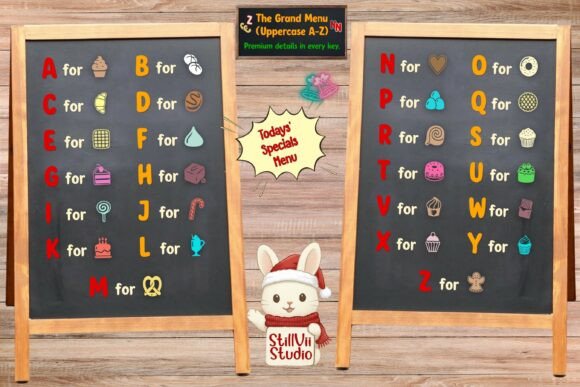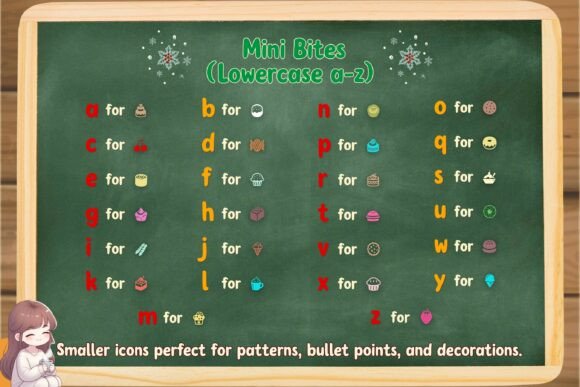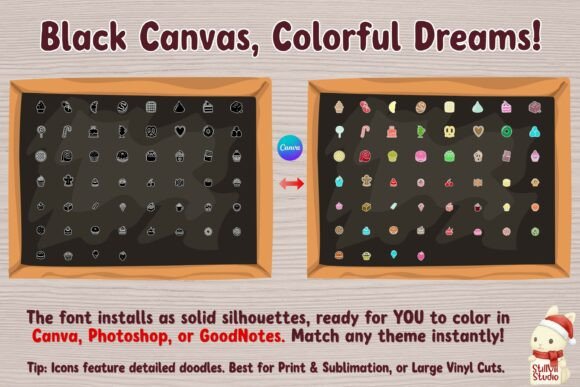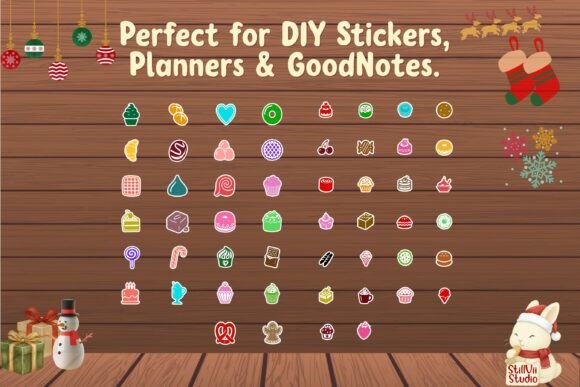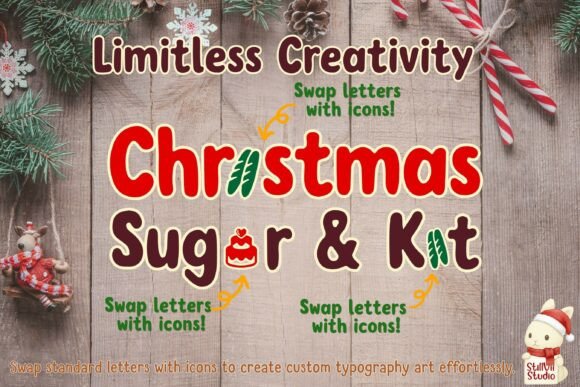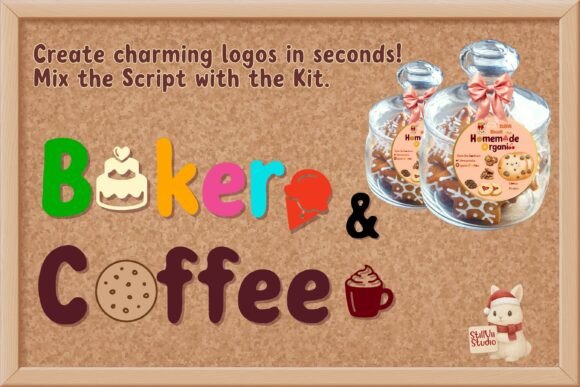
Welcome to the Sweetest Christmas Bakery! 🎄
Are you ready to serve up delicious designs this holiday season? Look no further than the “Christmas Cream & Kit” font duo! Imagine the smell of fresh cookies and warm cocoa—that’s the vibe of this fantastic font combination. In this article, we’ll dive into the details of Christmas Cream and Kit Font, and explore how you can use them to create stunning holiday designs.
Introducing Christmas Cream: A Bold, Retro Monoline Script
Christmas Cream is a bold, retro monoline script font that’s perfect for creating “yummy” headers. Its solid style and rounded letterforms evoke the warmth and friendliness of the holiday season. With Christmas Cream, you can add a touch of nostalgia and sophistication to your designs. Whether you’re creating a holiday marketing campaign or a festive social media post, this font is sure to impress.
Meet Christmas Cream Kit: A Font Packed with Hand-Drawn Icons
But that’s not all! Christmas Cream Kit is a font packed with 52+ hand-drawn bakery and holiday icons, mapped to A-Z and a-z. This means you can mix and match these adorable icons to create instant logos, cute gift tags, and festive planner layouts. The icons feature a range of holiday treats, including trees, treats, and stars, allowing you to build cohesive holiday scenes instantly.
Celebrate the Season with Christmas Cream & Kit
The Christmas Cream & Kit typeface captures the warmth of the season with rounded, friendly letterforms that look just as good on a cookie package as they do on a holiday marketing campaign. With this font duo, you can create a range of holiday designs, from DIY ornaments to festive social media posts and greeting cards. The artisanal, hand-crafted feel of Christmas Cream & Kit is sure to delight your audience and make your designs stand out.
Design Ideas with Christmas Cream & Kit
So, what can you create with Christmas Cream & Kit? Here are a few design ideas to get you started:
- DIY ornaments: Use Christmas Cream and Kit to create custom ornaments for your tree or as gifts.
- Festive social media posts: Add a touch of holiday cheer to your social media posts with Christmas Cream and Kit.
- Greeting cards: Create custom greeting cards with Christmas Cream and Kit that are sure to impress.
- Holiday marketing campaigns: Use Christmas Cream and Kit to create eye-catching holiday marketing campaigns that drive results.
- Cookies and treats: Design custom cookie packages and treat labels with Christmas Cream and Kit.
Why Choose Christmas Cream & Kit?
So, why choose Christmas Cream & Kit for your holiday designs? Here are just a few reasons:
- Unique and festive: Christmas Cream & Kit is a unique and festive font duo that’s sure to stand out in your designs.
- Easy to use: With its simple and intuitive design, Christmas Cream & Kit is easy to use, even for beginners.
- Customizable: With 52+ hand-drawn icons, you can customize your designs to fit your brand and style.
- High-quality: Christmas Cream & Kit is a high-quality font duo that’s designed to deliver exceptional results.
In conclusion, Christmas Cream & Kit is the perfect font duo for your holiday designs. With its bold, retro monoline script and hand-drawn icons, you can create stunning holiday designs that are sure to delight. Whether you’re a designer, crafter, or DIY enthusiast, Christmas Cream & Kit is a must-have font duo for the holiday season. So why wait? Get baking with Christmas Cream & Kit today! 🎄